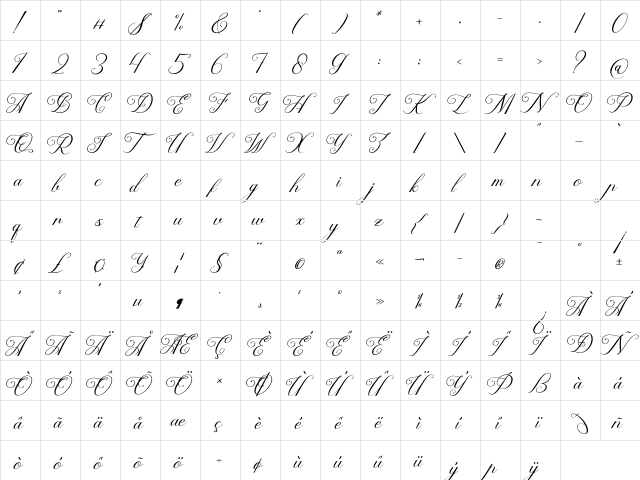
Complete Bighried Ranbell Regular glyph index. Displaying only characters natively supported by Bighried Ranbell Regular font.
Bighried Ranbell is a composed and adaptable typeface that performs quietly and consistently across a wide range of design contexts.
Who designed the Bighried Ranbell Regular font?
This font was published by Denustudios. Check the technical specs section for copyright and designer details.